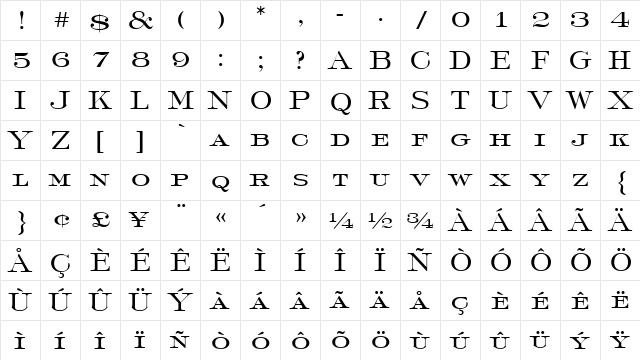
ATSackersRoman Regular
Design Context for ATSackersRoman Typeface
ATSackersRoman offers clean, dependable letterforms without strong stylistic allegiance, making it a practical choice for designers who need flexibility.